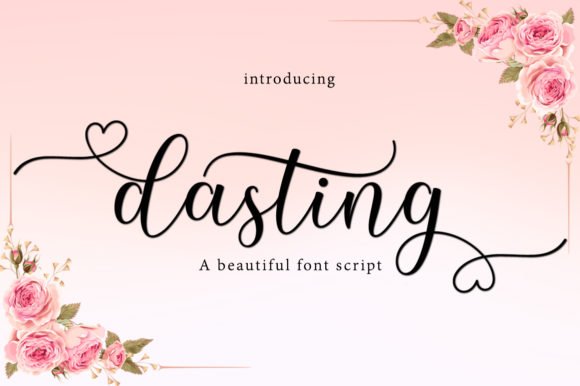
Discovering the Magic of Hand-Drawn Typography
Have you ever been brainstorming a creative project, and suddenly, the perfect font pops into your head? For designers, it’s a moment of pure joy, and it’s exactly what happens when you stumble upon the Dasting Font. This enchanting hand-lettered font is more than just a pretty face – it’s a tool that can elevate your designs to new heights.
With its varying baseline, smooth lines, and gorgeous glyphs, the Dasting Font is perfect for creating stunning visual content. Whether you’re crafting wedding invitations, designing social media posts, or creating greeting cards, this font is sure to bring an authentic feel to your work. Its stunning alternates will also give you endless possibilities to experiment and push the boundaries of your creativity.
Dasting Font Key Features
- Unique Characteristics: Dasting Font features a unique blend of modern and vintage elements, with intricate details and subtle texture, setting it apart from other fonts in its category.
Dasting Font Review
I recently had the chance to work with the Dasting Font, and I’m excited to share my thoughts with you.
- Unique Character: The Dasting Font has a distinct and quirky feel to it, which can add a lot of personality to your designs.
- Legibility: Despite its unconventional look, the font is surprisingly easy to read, even at smaller sizes.
- Customization Options: The font comes with a range of weights and styles, giving you plenty of flexibility when it comes to choosing the right look for your project.
- Overuse: The Dasting Font’s unique look can quickly become overwhelming if overused. Be sure to balance it with more traditional fonts to avoid visual fatigue.
- Lack of Consistency: Some letters and characters don’t quite align with the font’s overall aesthetic, which can be jarring at times.
- Platform Limitations: The font may not render as intended on certain platforms or devices, so be sure to test it thoroughly.
Overall, the Dasting Font is a great addition to any designer’s toolkit. Its unique character and customization options make it a great choice for projects that need a little extra flair. Just be mindful of its limitations and use it thoughtfully to get the most out of it.
Tips for Getting the Most Out of Dasting Font
For optimal results, use Dasting Font in combination with bold or italic styles to create visual interest. Also, experiment with different font sizes and colors to achieve a cohesive look.
Dasting Font is ideal for creative projects, such as logo design, infographics, and social media graphics. Its unique style and aesthetic make it perfect for adding a touch of elegance and sophistication to any design.